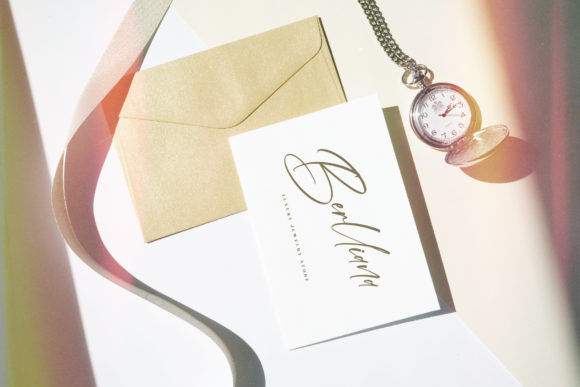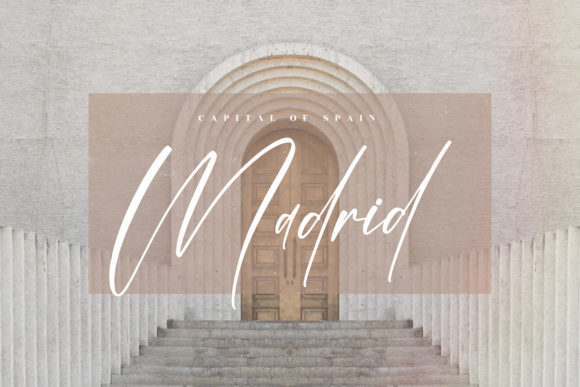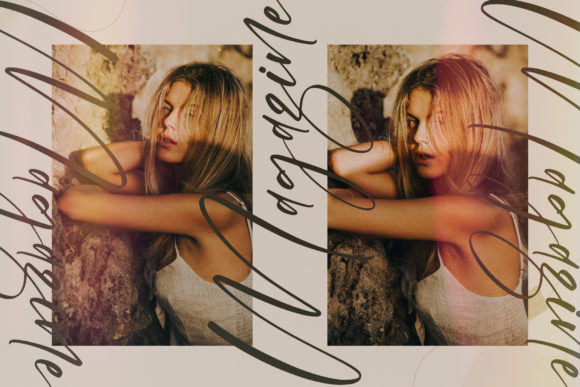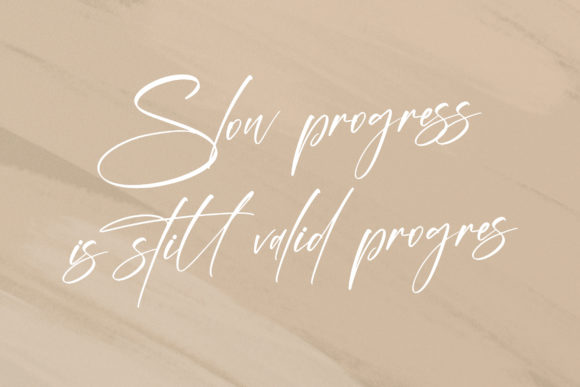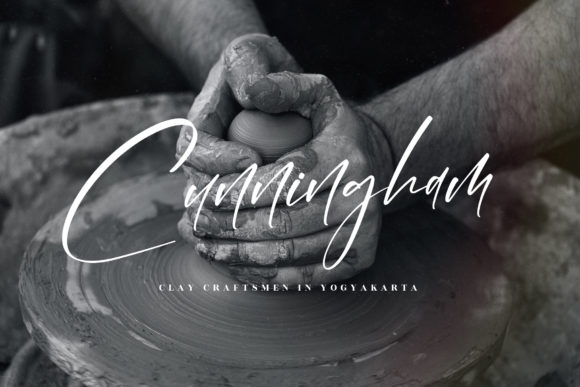
Bermingham Diamond Font: A Timeless Handwritten Font for Creative Projects
In the world of typography, a good font can make all the difference in creating visually appealing designs. For designers and crafters looking for a lovely and timeless handwritten font, Bermingham Diamond is an excellent choice. This beautiful font is perfect for creating eye-catching logos, branding, and quotes that are sure to leave a lasting impression.
What Makes Bermingham Diamond Font Special?
Bermingham Diamond Font is a stunning handwritten font that exudes elegance and sophistication. Its unique and intricate design makes it stand out from other fonts, making it ideal for projects that require a touch of luxury and refinement. Whether you’re working on a logo design, branding project, or simply want to add a personal touch to your quotes, Bermingham Diamond Font is the perfect choice.
Key Features of Bermingham Diamond Font
- PUA Encoded: Bermingham Diamond Font is PUA (Private Use Area) encoded, which means you can access all the glyphs and swashes with ease. This feature makes it easy to use and customize the font to suit your design needs.
- Handwritten Style: The font features a beautiful handwritten style that is both elegant and timeless. Its unique design ensures that your projects will stand out from the crowd.
- Eyecatching Logos and Branding: Bermingham Diamond Font is perfect for creating eye-catching logos and branding materials. Its intricate design and elegant style make it ideal for businesses and individuals looking to create a lasting impression.
- Multipurpose: This font is not limited to just logos and branding. You can use it for a variety of projects, including quotes, posters, social media graphics, and more.
Why Choose Bermingham Diamond Font?
With so many fonts available, why choose Bermingham Diamond Font? Here are a few reasons why designers and crafters love this font:
- Unique Design: Bermingham Diamond Font features a unique and intricate design that sets it apart from other fonts.
- Elegant Style: The font’s elegant style makes it perfect for projects that require a touch of sophistication and luxury.
- Easy to Use: The font is PUA encoded, making it easy to access all the glyphs and swashes.
- Multipurpose: You can use Bermingham Diamond Font for a variety of projects, from logos and branding to quotes and social media graphics.
Tips and Tricks for Using Bermingham Diamond Font
Here are a few tips and tricks to help you get the most out of Bermingham Diamond Font:
- Experiment with Different Sizes: Try using Bermingham Diamond Font in different sizes to see how it looks. You may be surprised at how well it scales.
- Pair it with Other Fonts: Bermingham Diamond Font pairs well with other fonts. Try pairing it with a sans-serif font for a modern look or a serif font for a more traditional look.
- Use it for Headings: Bermingham Diamond Font is perfect for headings and titles. Use it to add a touch of elegance and sophistication to your designs.
Bermingham Diamond Font is a beautiful and timeless handwritten font that is perfect for designers and crafters looking to add a touch of elegance and sophistication to their projects. With its unique design, PUA encoding, and multipurpose use, this font is sure to become a favorite in your font collection. Whether you’re working on a logo design, branding project, or simply want to create eye-catching quotes, Bermingham Diamond Font is the perfect choice.